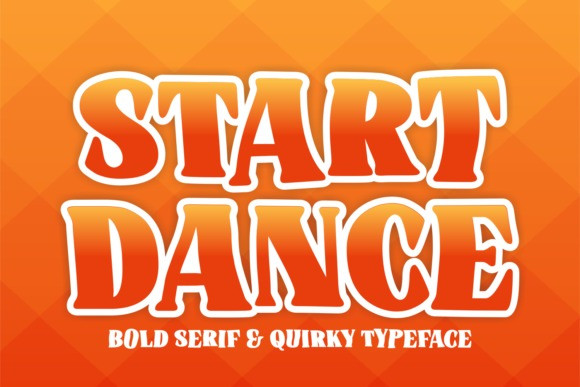
Start Dance Font
Start Dance Font is a bold, thick lettered and fun display font. Whether you’re using it for crafting, digital designing, presentations or greeting cards making, it’s perfect!